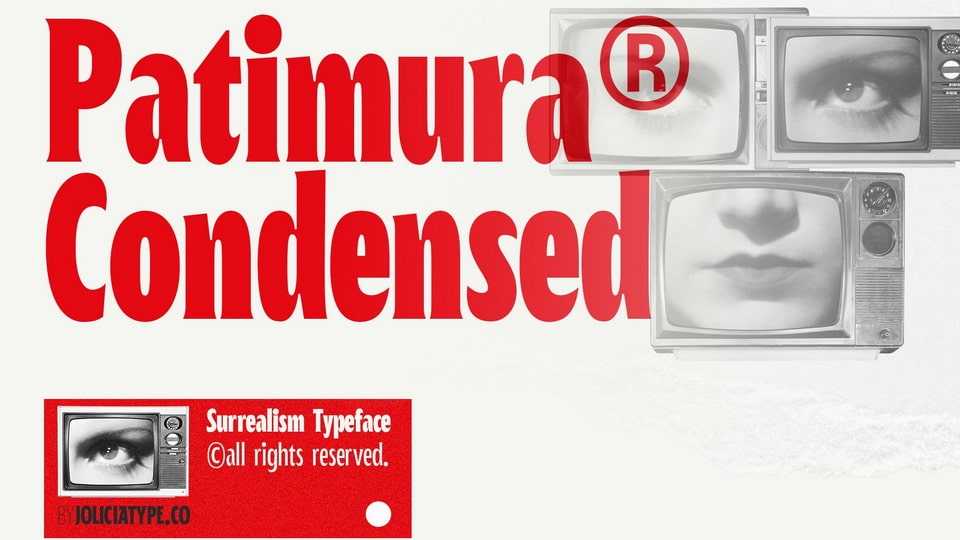
Download Patimura Condensed font, a modern typeface infused with the spirit of surrealism, designed for creative professionals seeking a unique visual impact.